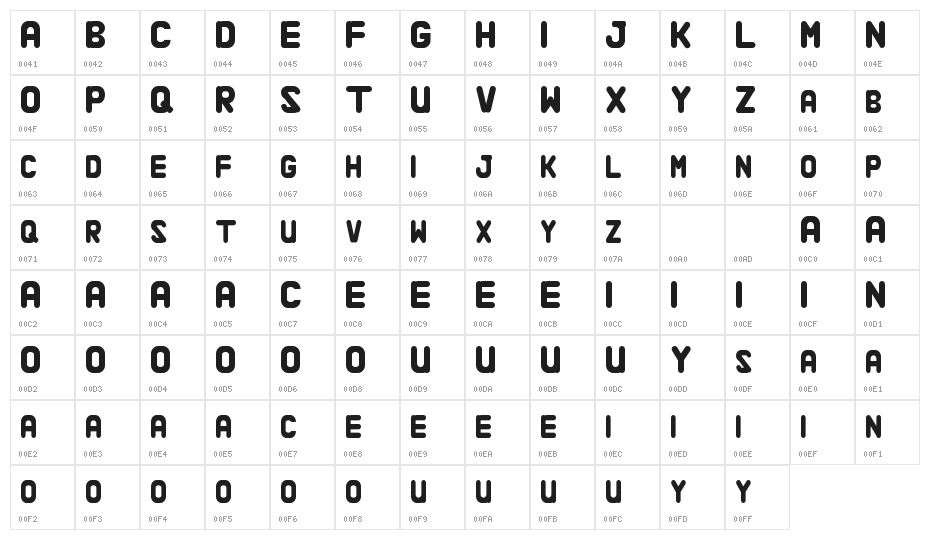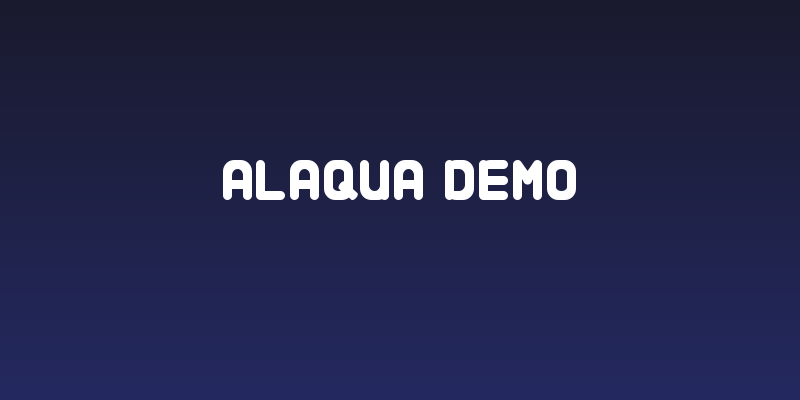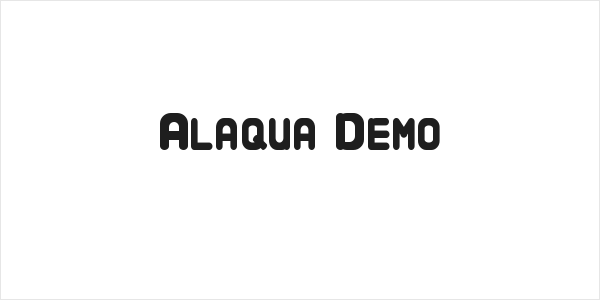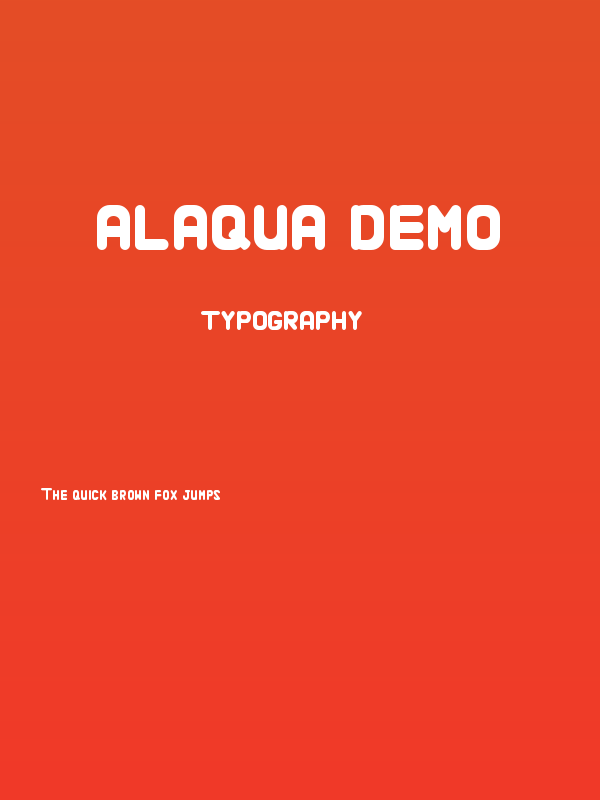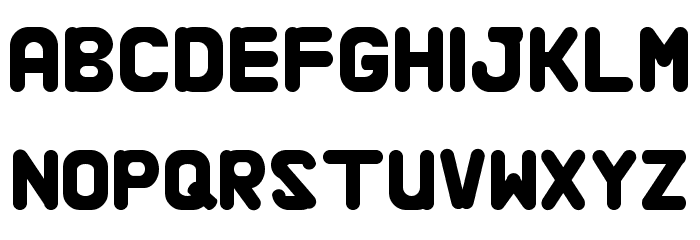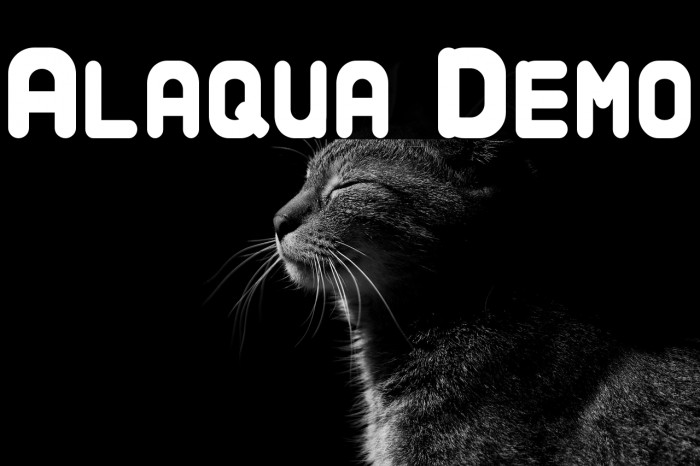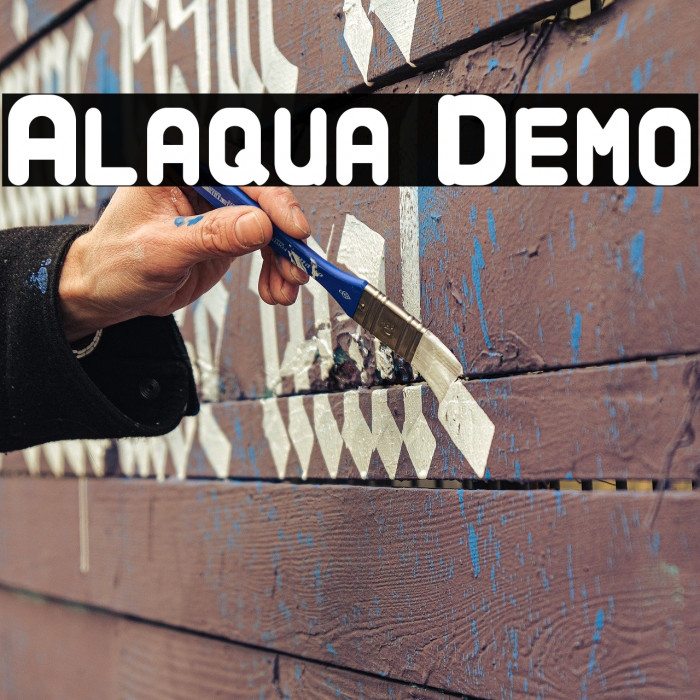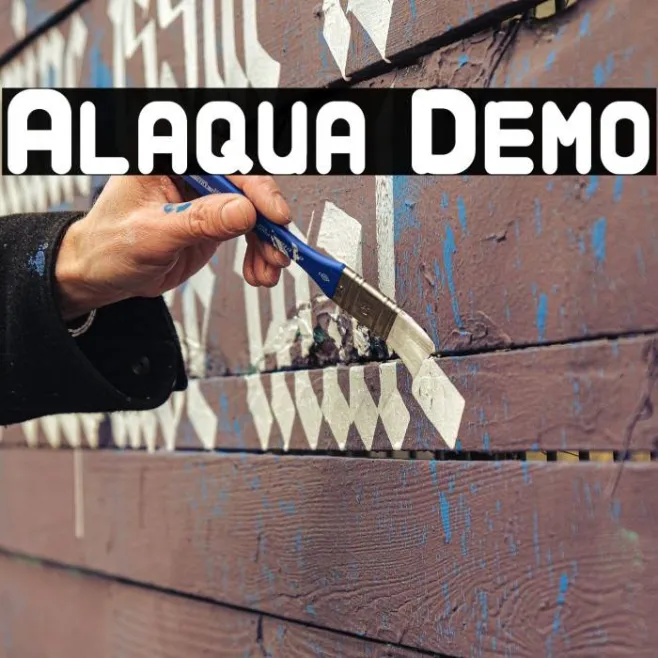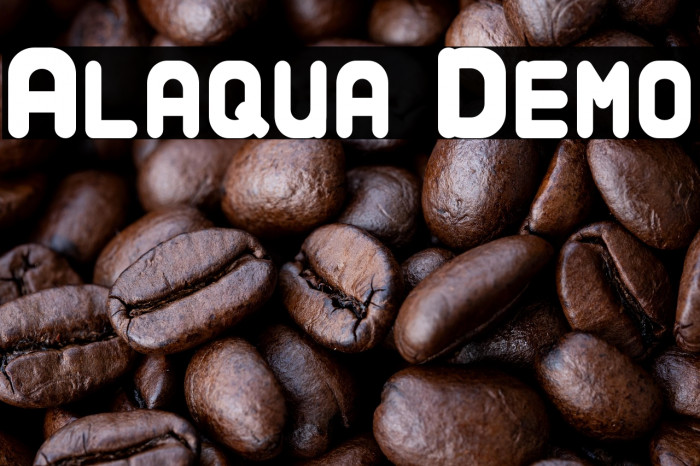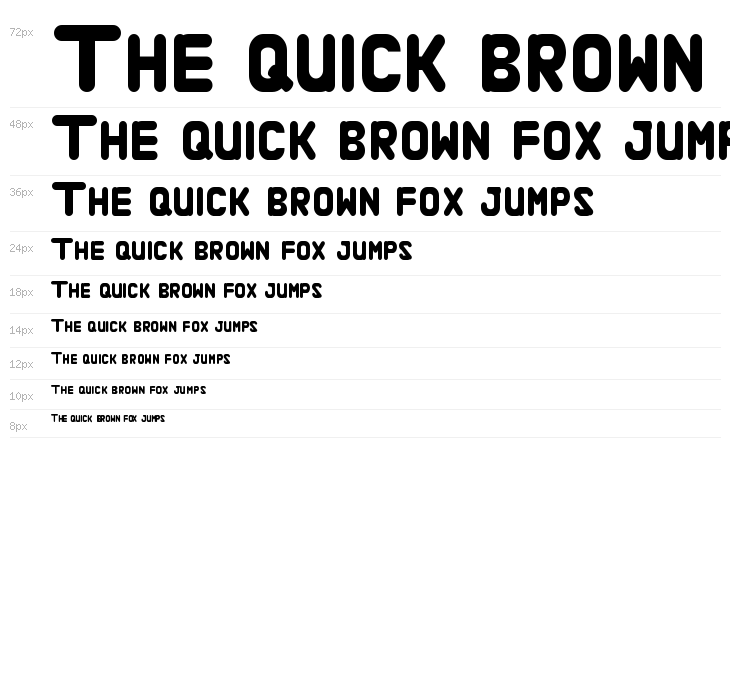
Alaqua Demo Font
Alaqua Demo Description
This font features bold, rounded characters with a modern and playful aesthetic. The letters are uniformly thick, providing a strong visual impact. The rounded edges soften the overall appearance, making it approachable and friendly. The uppercase letters are consistent in height, while the lowercase letters maintain a similar width, ensuring readability. The font's style is versatile, suitable for various design needs, from digital to print. Its boldness and rounded forms make it ideal for capturing attention while maintaining a sense of warmth and approachability.
| Proposed Projects | Ideal for branding, headlines, posters, and children's books due to its bold and friendly appearance. |